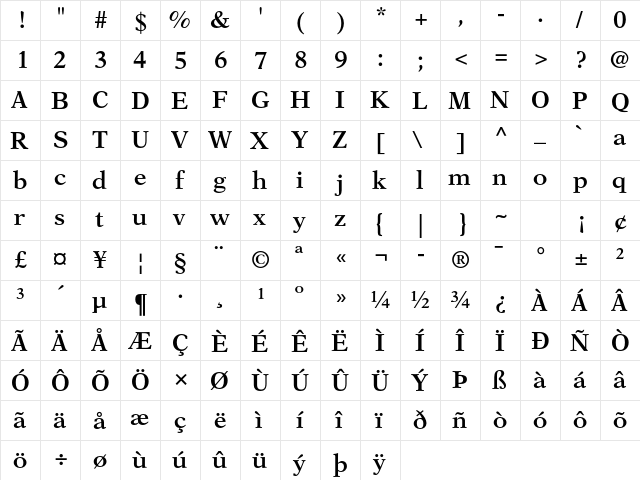
New Aster LT Std Semibold
| Designer | Francesco Simoncini |
Design Context for New Aster LT Std Typeface
New Aster LT Std offers clean, dependable letterforms without strong stylistic allegiance, making it a practical choice for designers who need flexibility. The heavy weight commands attention and anchors typographic hierarchies.